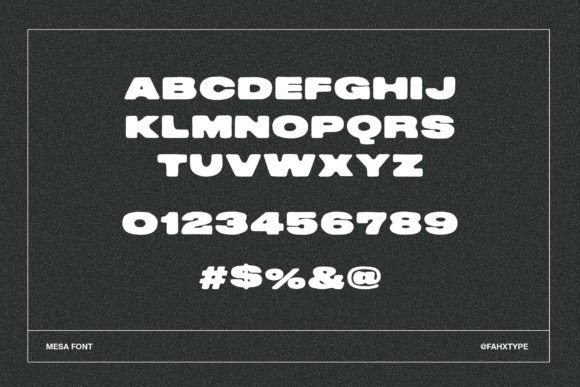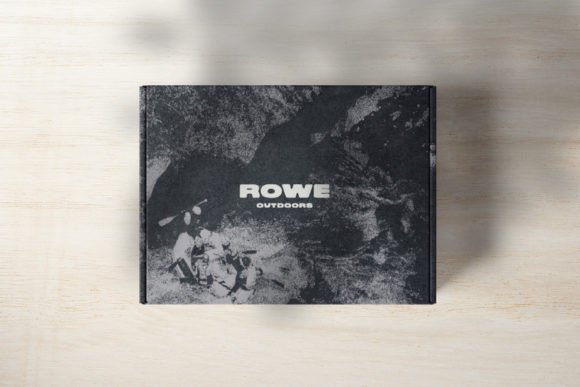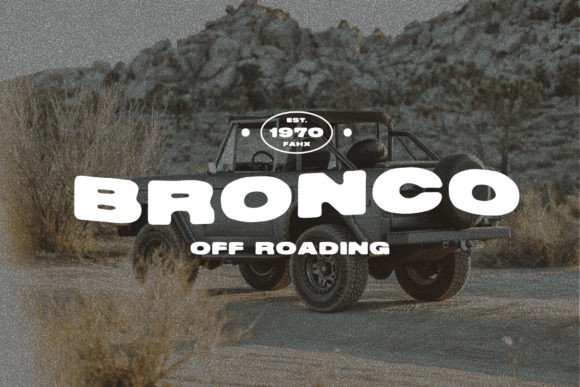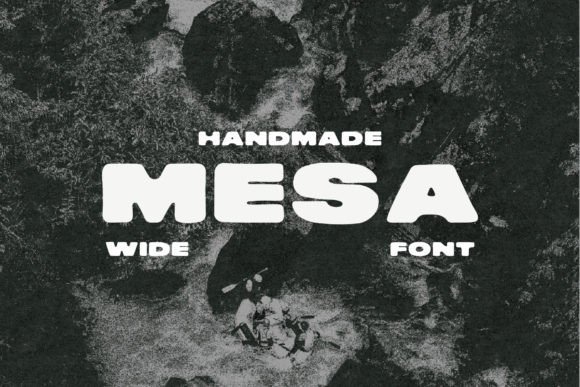
Introduction to Mesa Font
Mesa is a modern, bold, and wide font, designed to command attention.
With its clean lines and bold, wide-set letters, each character exudes power and confidence This font is perfect for headlines, logos, and other design elements that require a strong and assertive look, making a lasting impact on your audience.